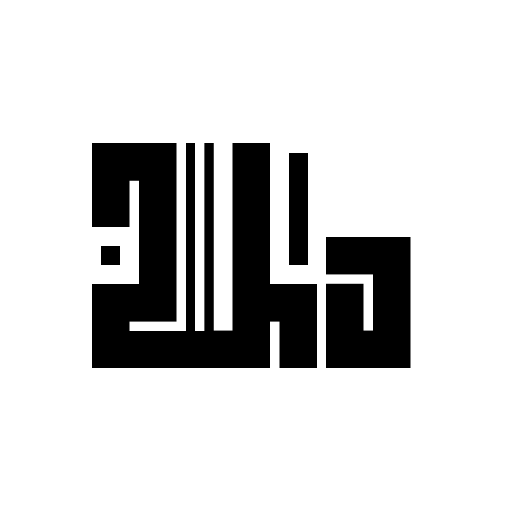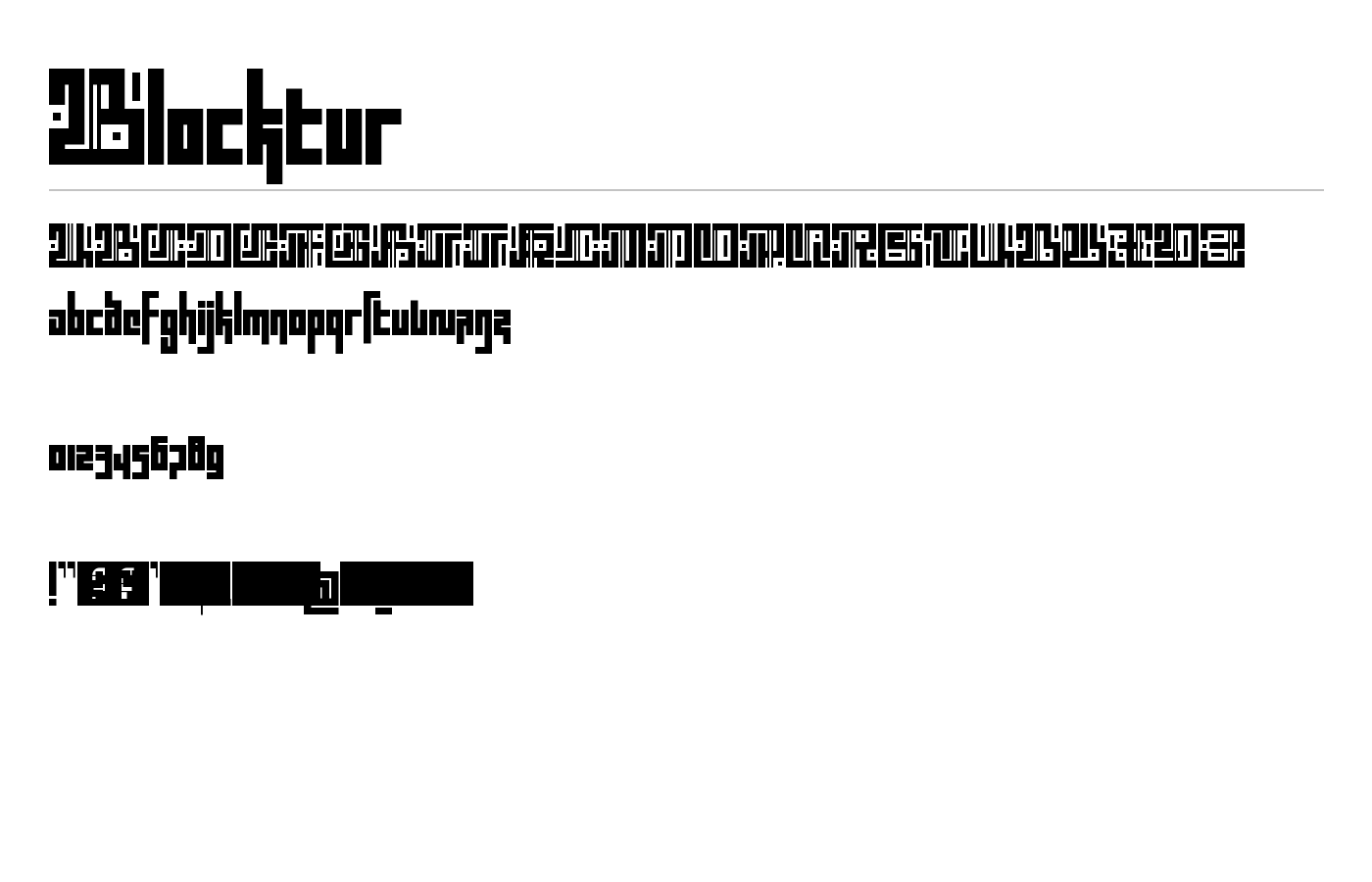
Blocktur is a bold, condensed sans serif font characterized by its blocky, geometric shapes and sharp edges, giving it a futuristic and tech-inspired feel. Its high contrast between thick and thin strokes, combined with unique letterforms, makes it ideal for striking headlines, logos, and digital media where a modern, experimental look is desired. This font works best in creative branding or display contexts where a strong, avant-garde style is needed to capture attention.
Blocktur Font
About Blocktur Font
| Font family | Blocktur Font |
| Designer | CMunk |